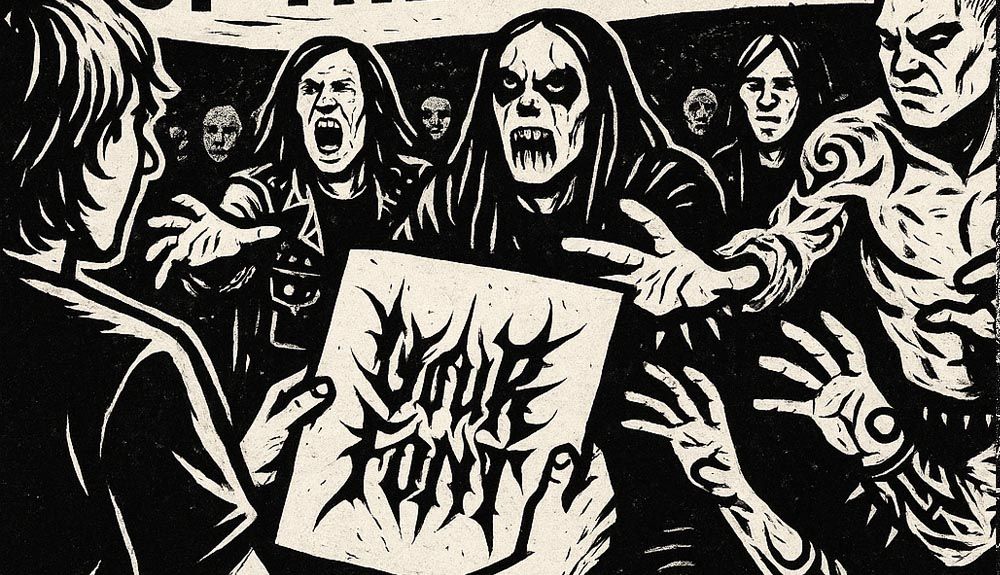
Creating a metal font is an art.
It’s brutal, expressive, and deeply personal.
But after all the sleepless nights drawing thorns, blood drips, and twisted ligatures — a question appears:
“How do I make this font sell — especially to the metal music scene?”
The truth is, the metalhead market is loyal, but also very niche.
You’re not just selling to designers — you’re selling to bands, merch makers, underground labels, and die-hard fans.
Here’s how to get your metal font noticed, respected, and used proudly on album covers around the world.
🎯 1. Know Your Audience: This Is NOT for Everyone
Forget trying to make your font appeal to all designers.
Your buyers are:
- Metal bands (especially DIY or indie)
- Poster or merch designers
- Clothing brands with dark or gothic themes
- Event organizers in the extreme music scene
Study them:
- What kind of fonts do they already use?
- Which styles do deathcore vs. black metal prefer?
- What mood or theme are they trying to express?
📌 Create for a subgenre — not the general public.
A font made for slam death metal fans won’t work for gothic doom bands, and that’s okay.
🖼️ 2. Create Killer Previews — Brutal Visuals Sell Fonts
Metal bands are visual thinkers.
They want to see how a font will look on:
- Album covers
- T-shirt mockups
- Logo designs
- Posters, flyers, patches
So when showcasing your font:
- Use dark, high-contrast backgrounds
- Add texture: smoke, blood, torn paper, etc.
- Show before/after usage (e.g. band name in basic vs. your font)
- Include genre-specific mockups: black metal = snowy forest; deathcore = blood and chains; thrash = flames and destruction
📌 Make your font look like a weapon, not just letters.
🤝 3. Target the Metal Scene Directly (Not Just Font Sites)
Metal buyers often aren’t browsing font marketplaces. They’re in the scene.
📌 Consider reaching out directly to bands and offering a sample version or collab.
💬 5. Talk Like One of Them — Be Part of the Cultur
Metal culture respects authenticity. If you’re a designer in the scene, use that to your advantage.
Let people know:
- What bands influence your design
- What genre your font is best for
- Why you made the font the way you did
Post with attitude, not corporate talk:
“This font was born in darkness. Made for album covers that burn. Use it loud — or don’t use it at all.”
📌 Show your passion, and you’ll earn respect.
🔥 Final Words: Don’t Just Sell a Font — Sell a Weapon
Metal isn’t just a market — it’s a war zone of creativity, rebellion, and raw emotion.
If you want your font to stand out:
- Make it brutal
- Make it bold
- And make it speak the language of metal
Because in this scene, the best fonts don’t just look good…
They become part of the band’s identity.